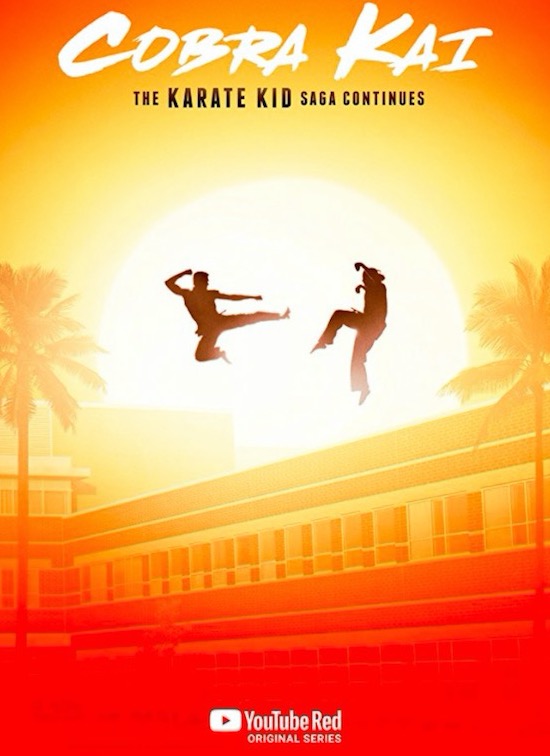
Introducing Cobra Kai Font. This is an American comedy-drama web television series that is based on The Karate Kid film series of Hollywood. This comedy-drama film series premiered on May 2, 2018, on YouTube Red.
The text on this film poster has a natural brush script, which is very similar to Dead Stock font, a great script typeface that was designed and shared by BLKBK Fonts. So, you can download easily this Cobra Kai Font demo version here.